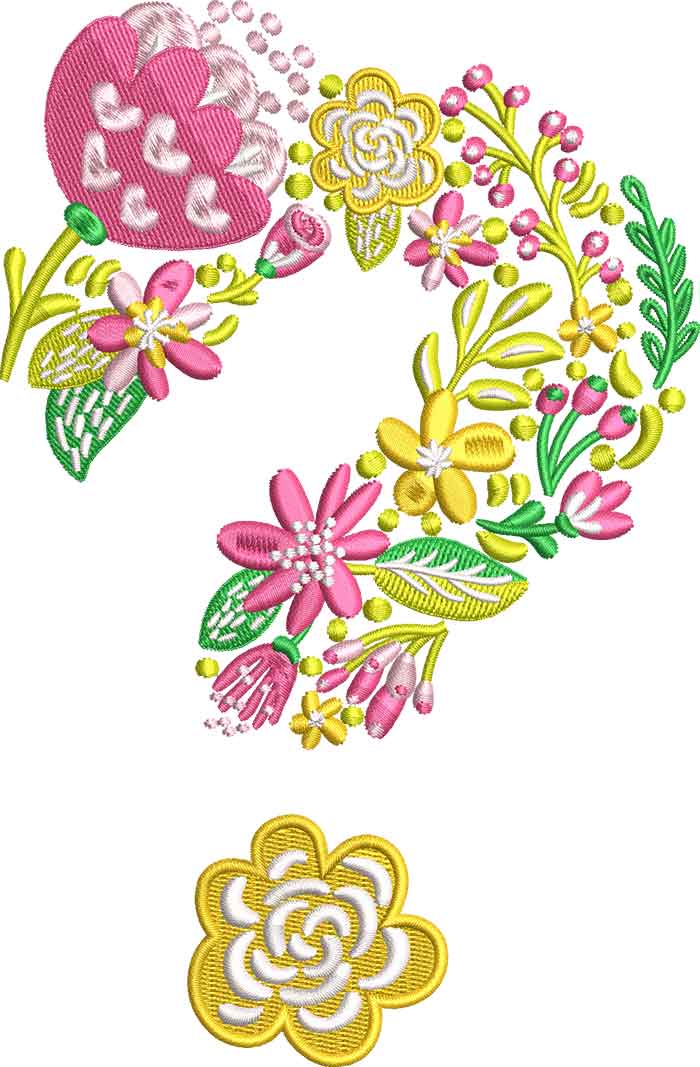
Embroidery Design: Summer Flowers Font – ? (question mark)
Inspired by nature, this elegant design adds organic beauty to garments, gifts, and home décor.